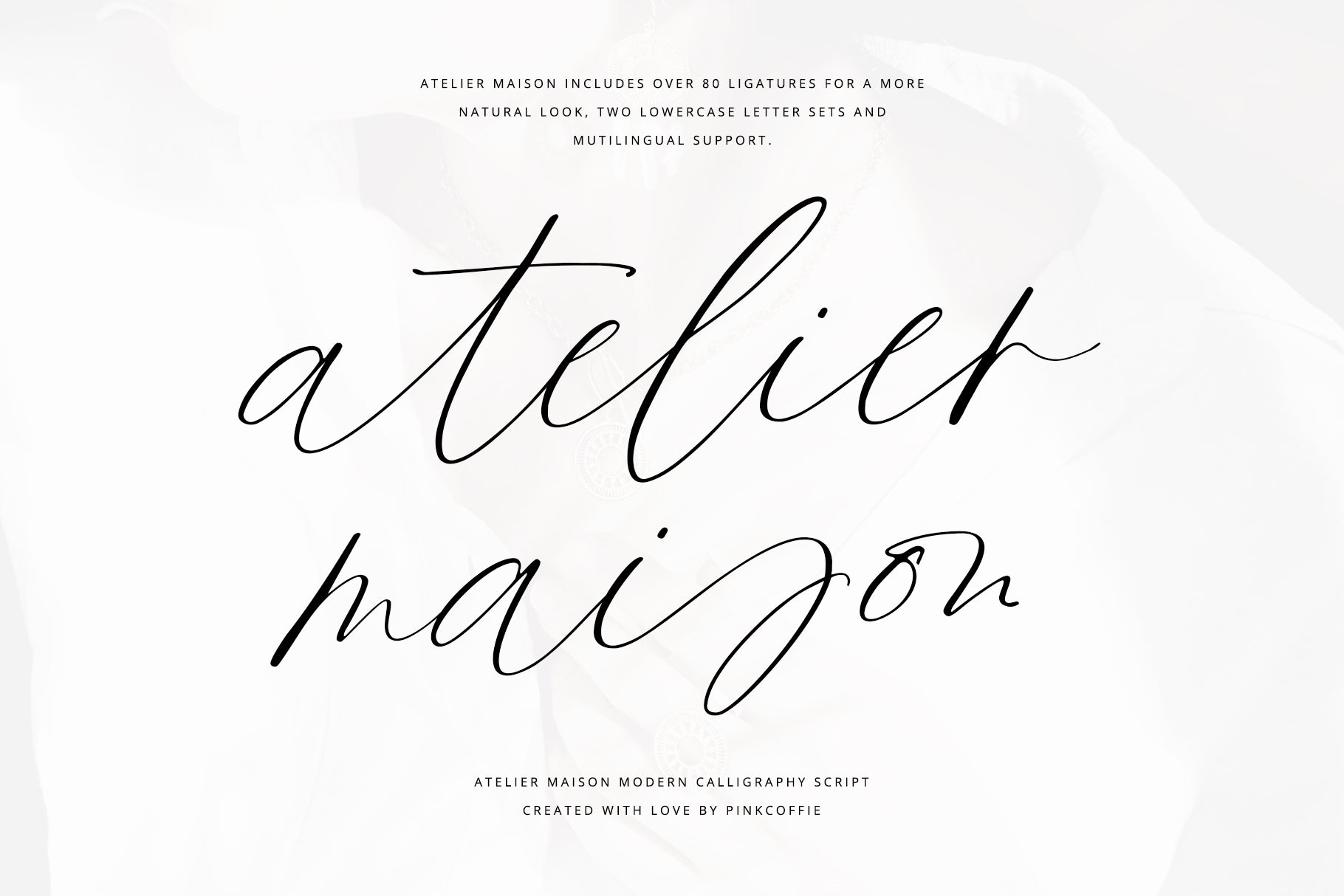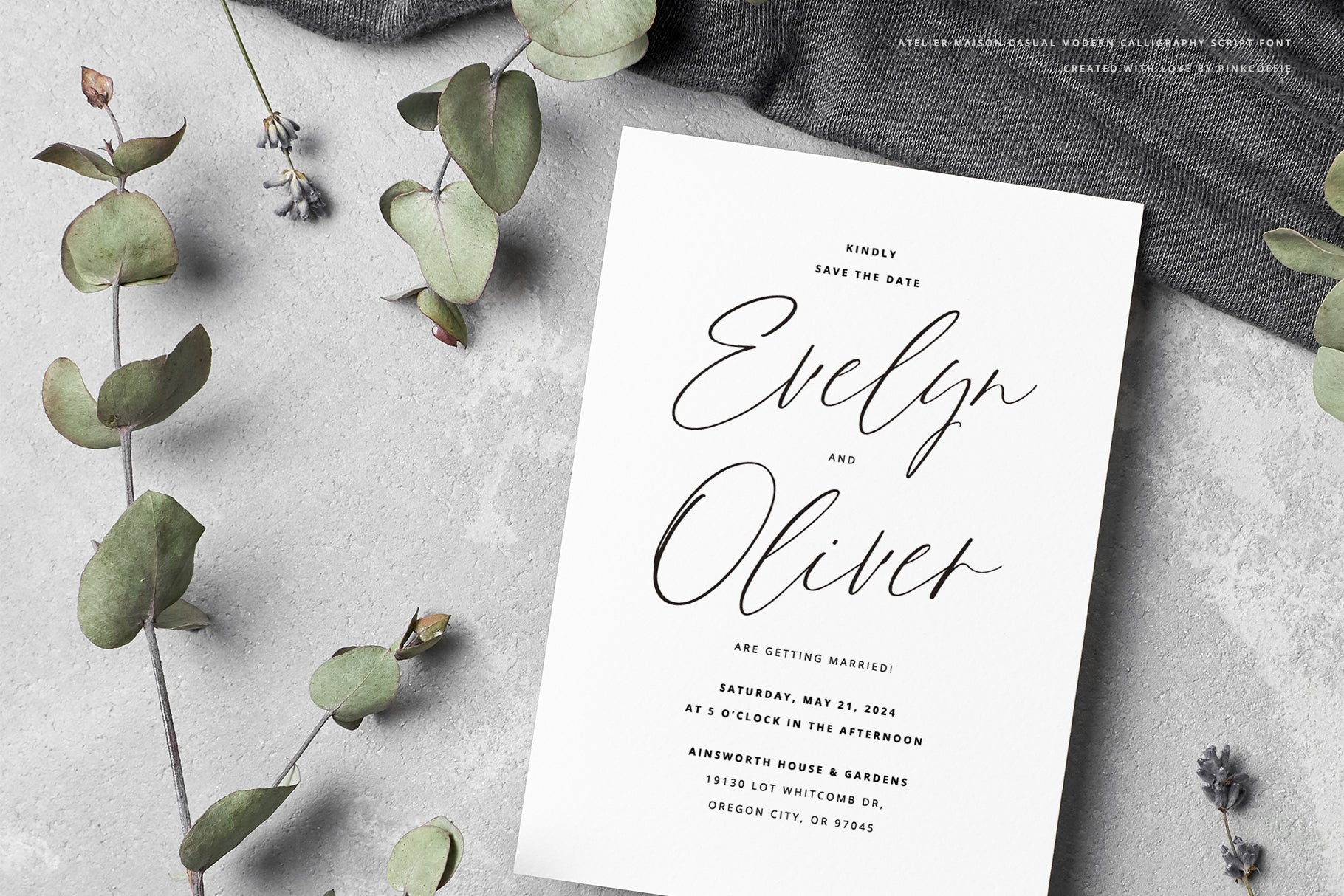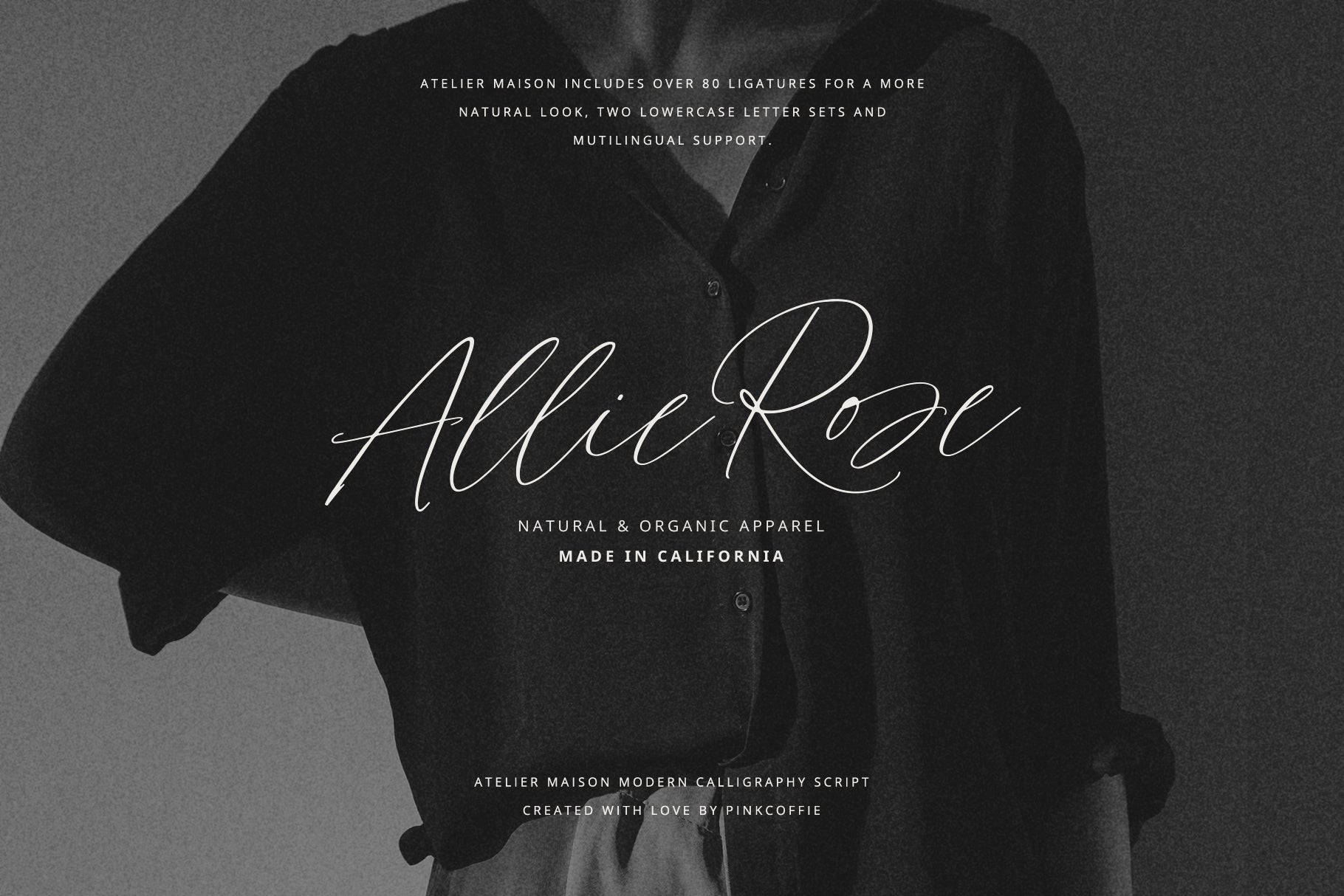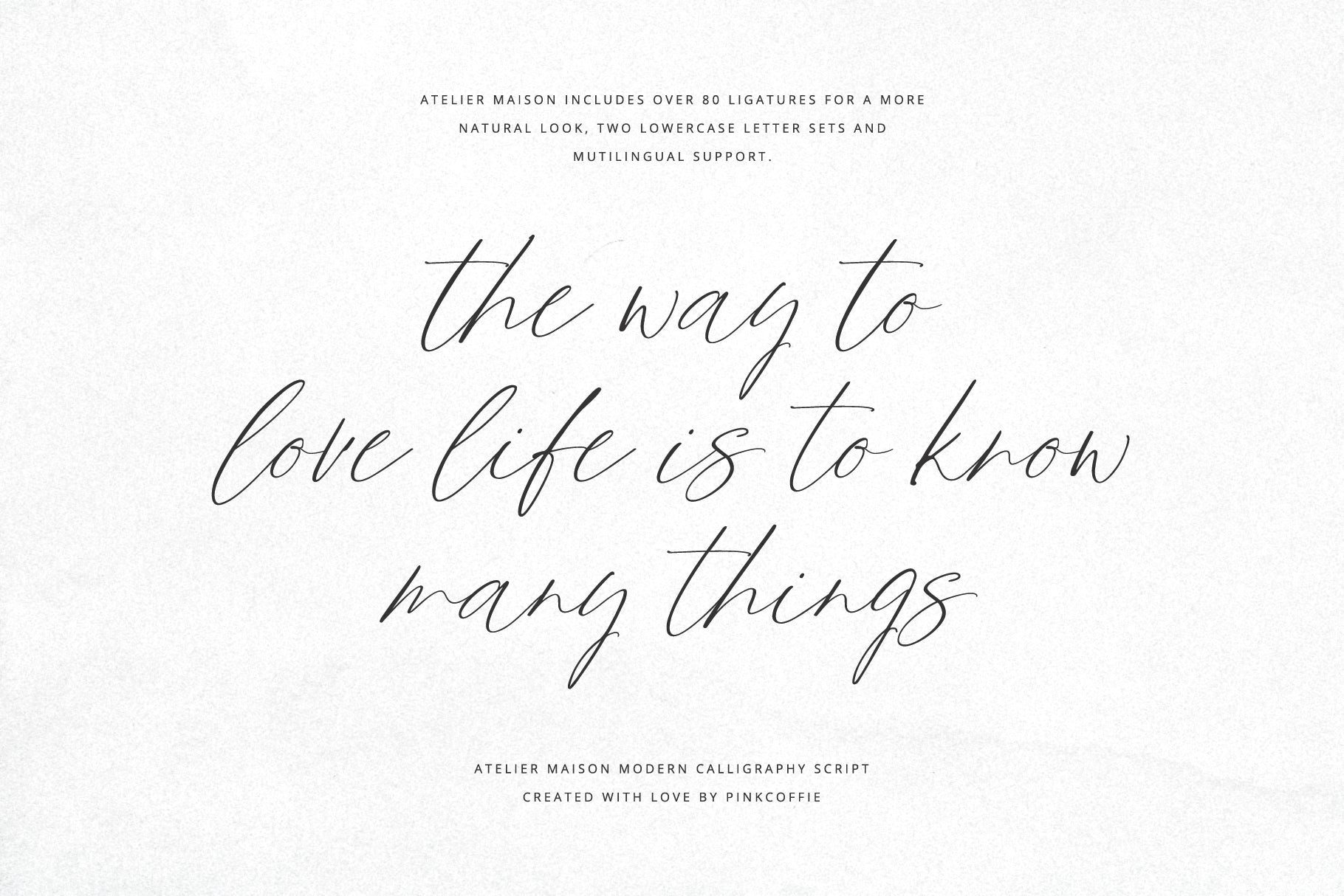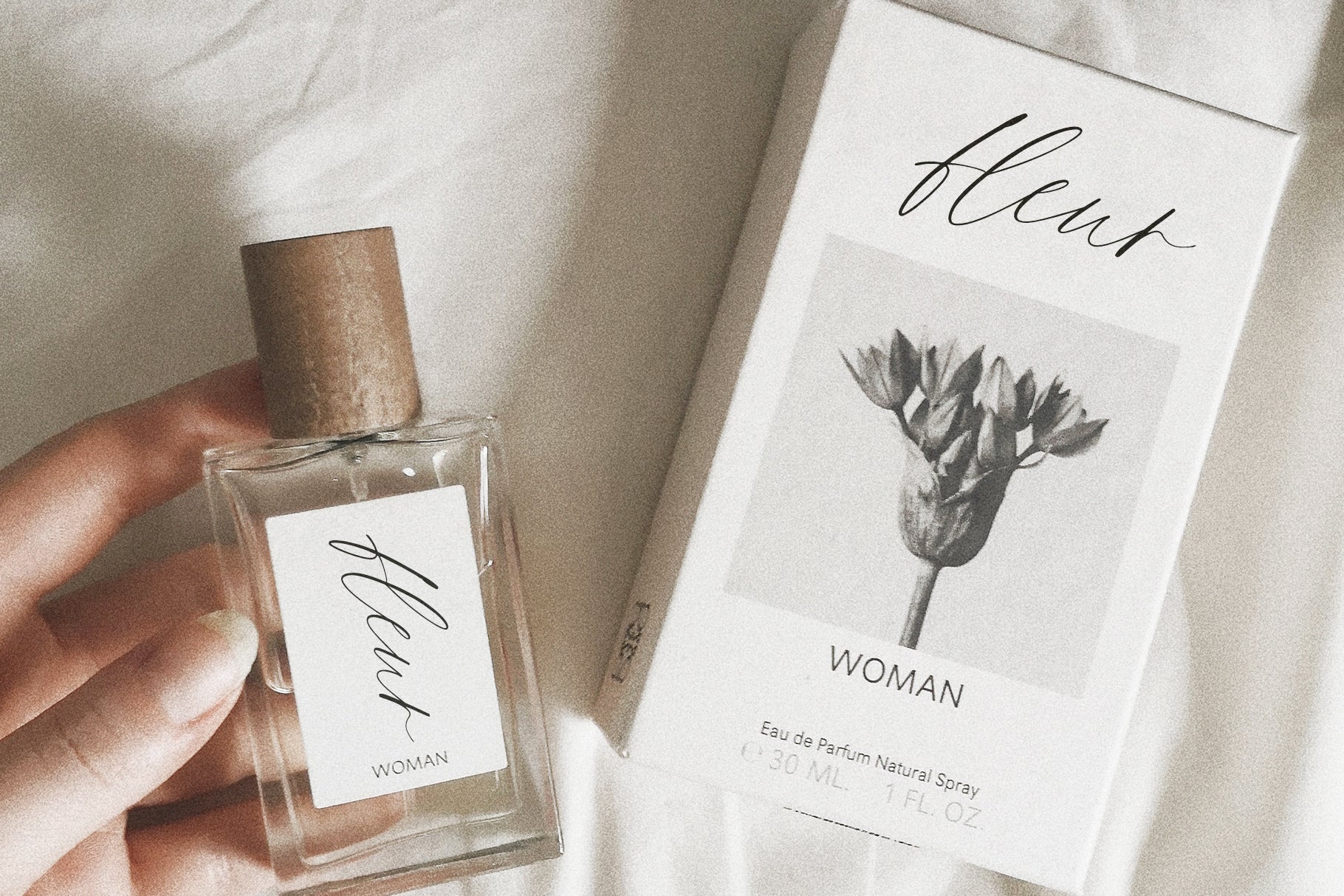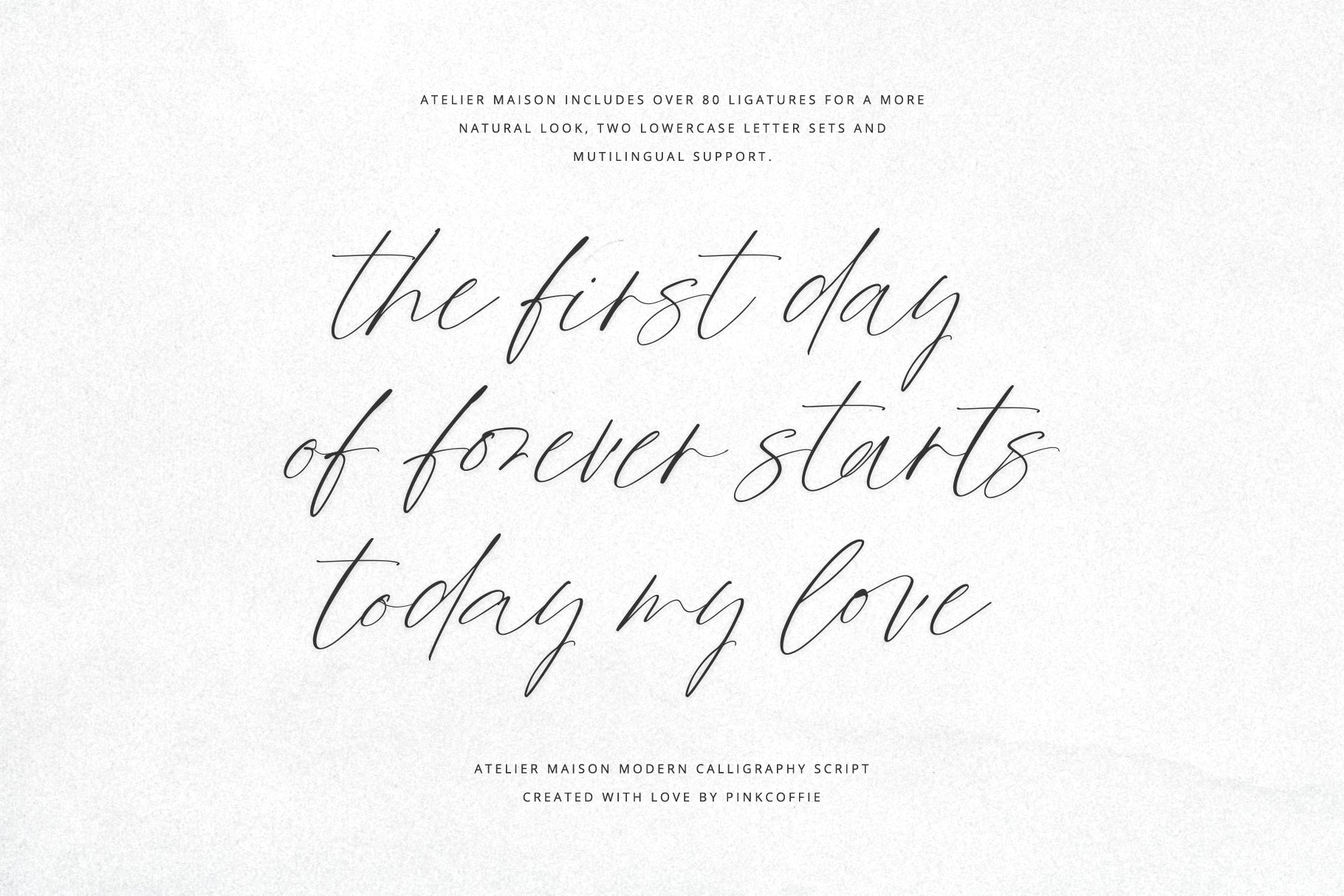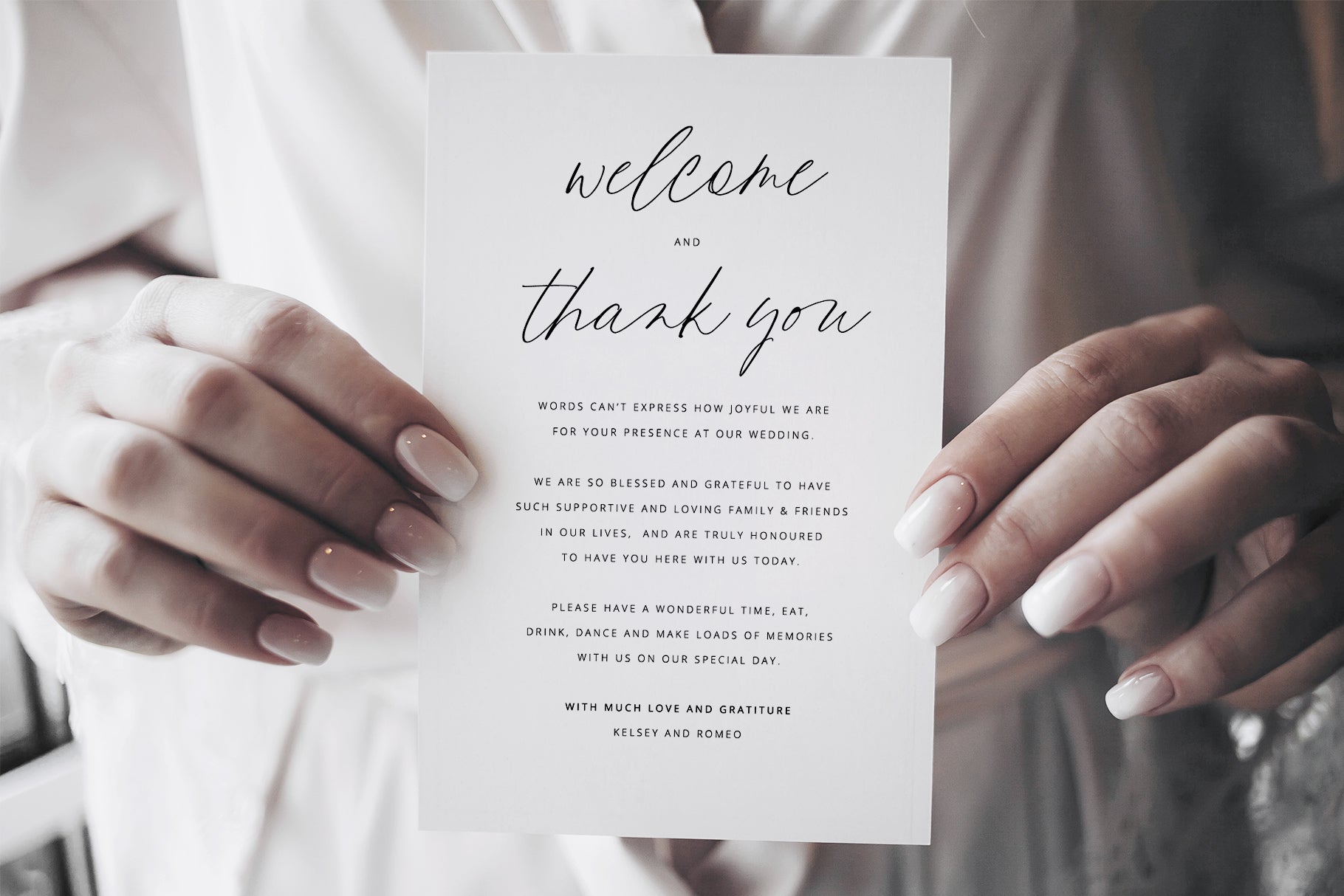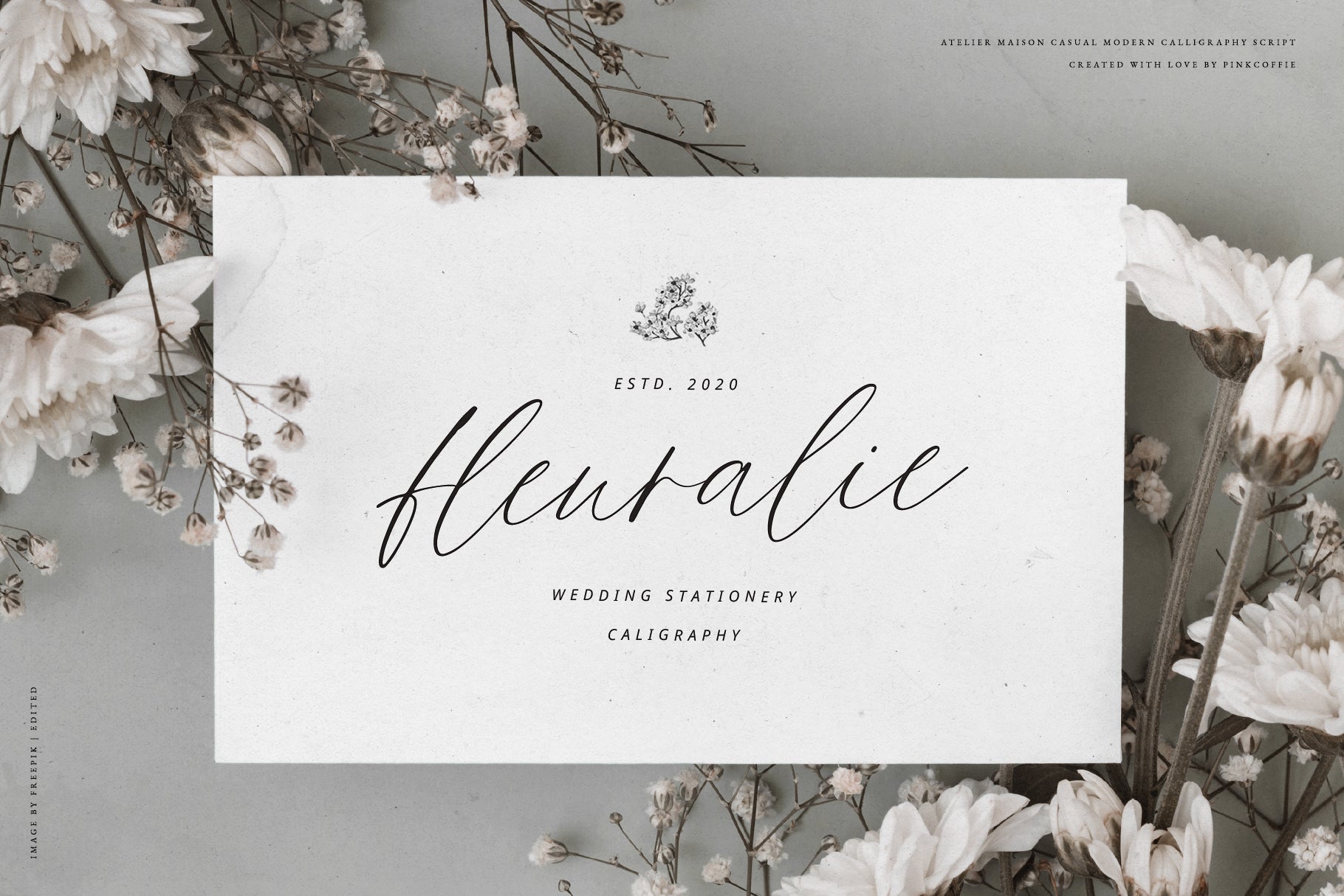
Atelier Maison
Say hello to Atelier Maison - a casual modern calligraphy script font featuring two sets of lowercase letters, uppercase, symbols, over 80 ligatures for a more natural look, and multilingual support.
Multilingual Support:
The font includes multilingual support and the following multi-lingual characters:
ÁĂÂÄÀĀĄÅÃÆĆČÇÐĎÉĚÊËĖÈĒĘÍÎÏÌĪĮĹĽŁŃŇÑÓÔÖÒŐŌØÕŔŘŚŠŞŤÚÛÜÙŰŪŲŮÝŹŽŻ áăâäàāąåãæćčçċďđéěêëėèēęğġíîïìīįķĺľļłńňņñóöòőōøõŕřŗśšşßťţúûüùűūųůẃŵẅẁýŷÿỳźžż